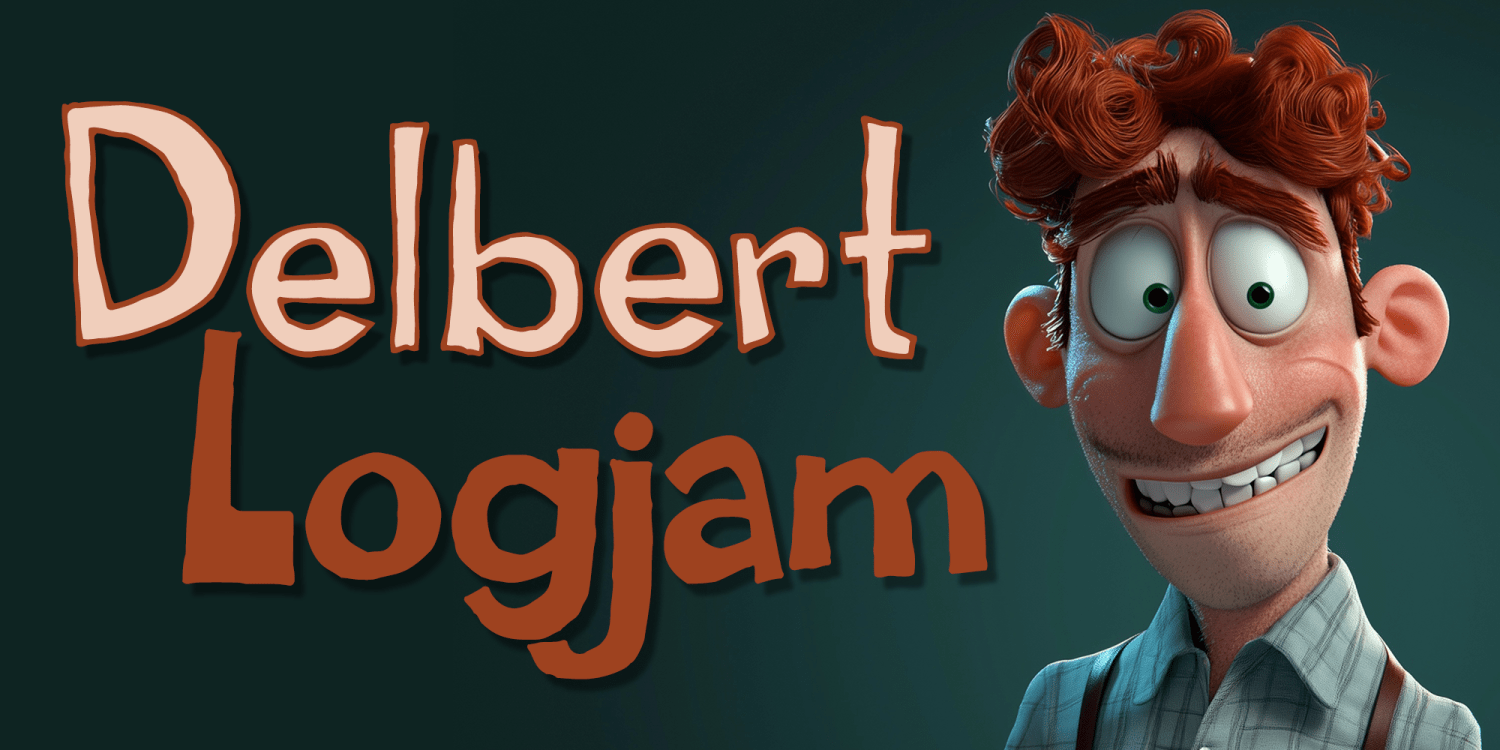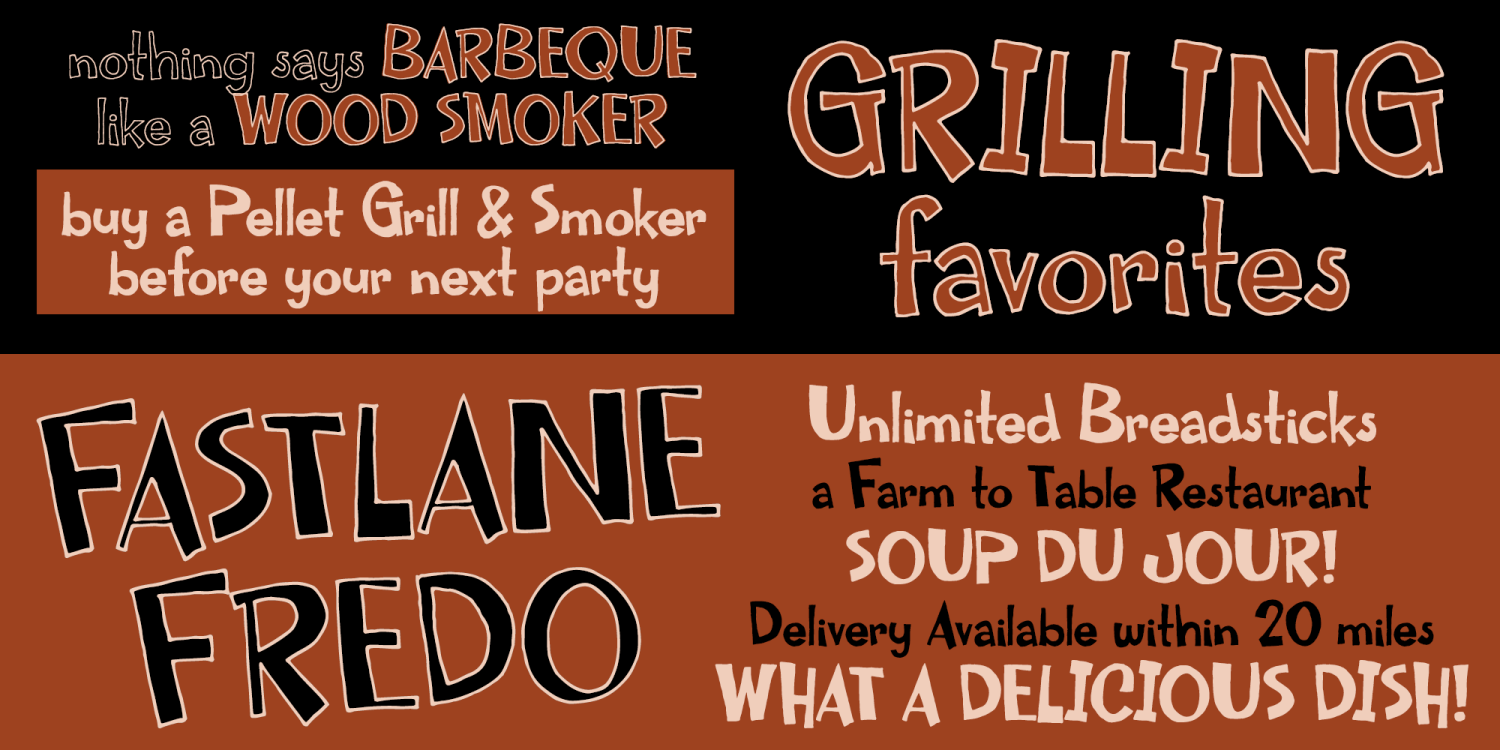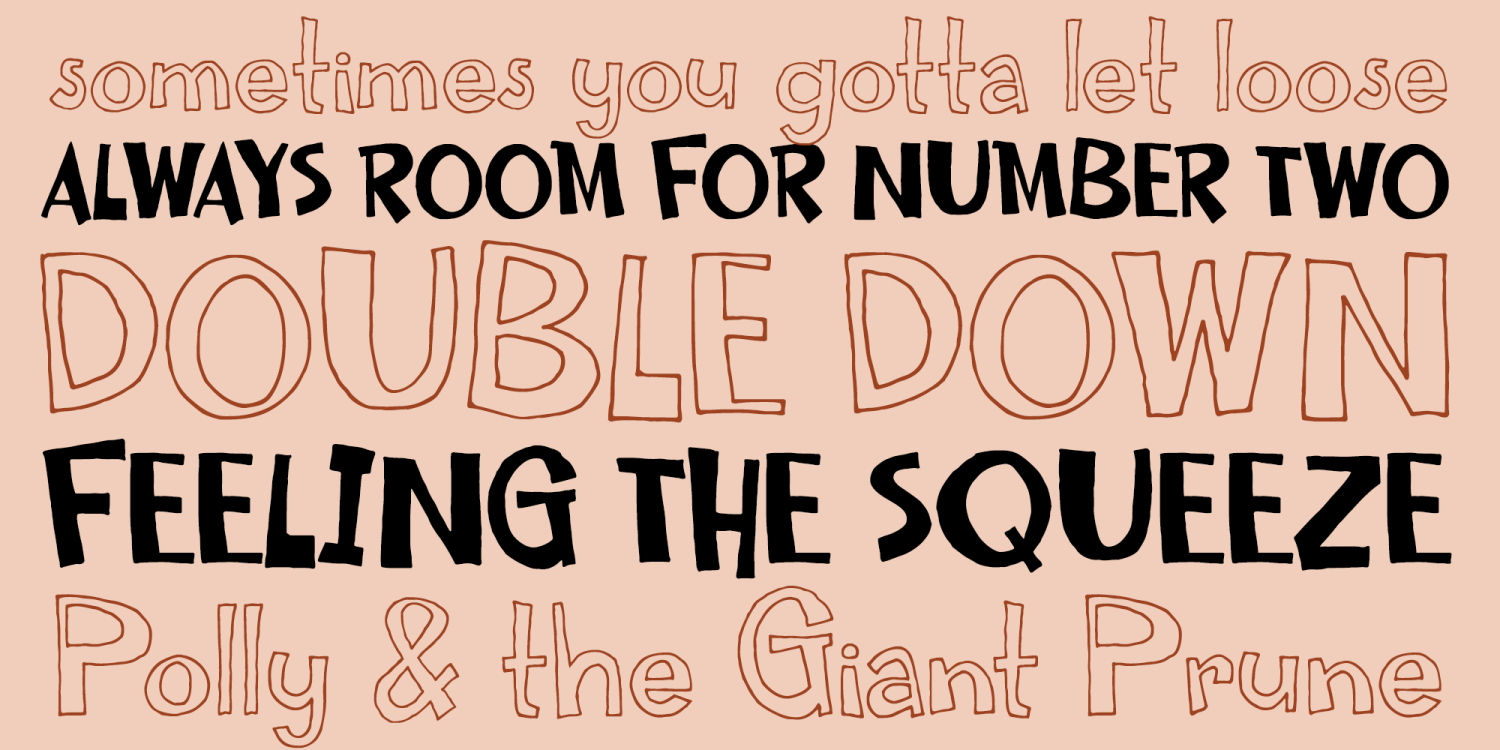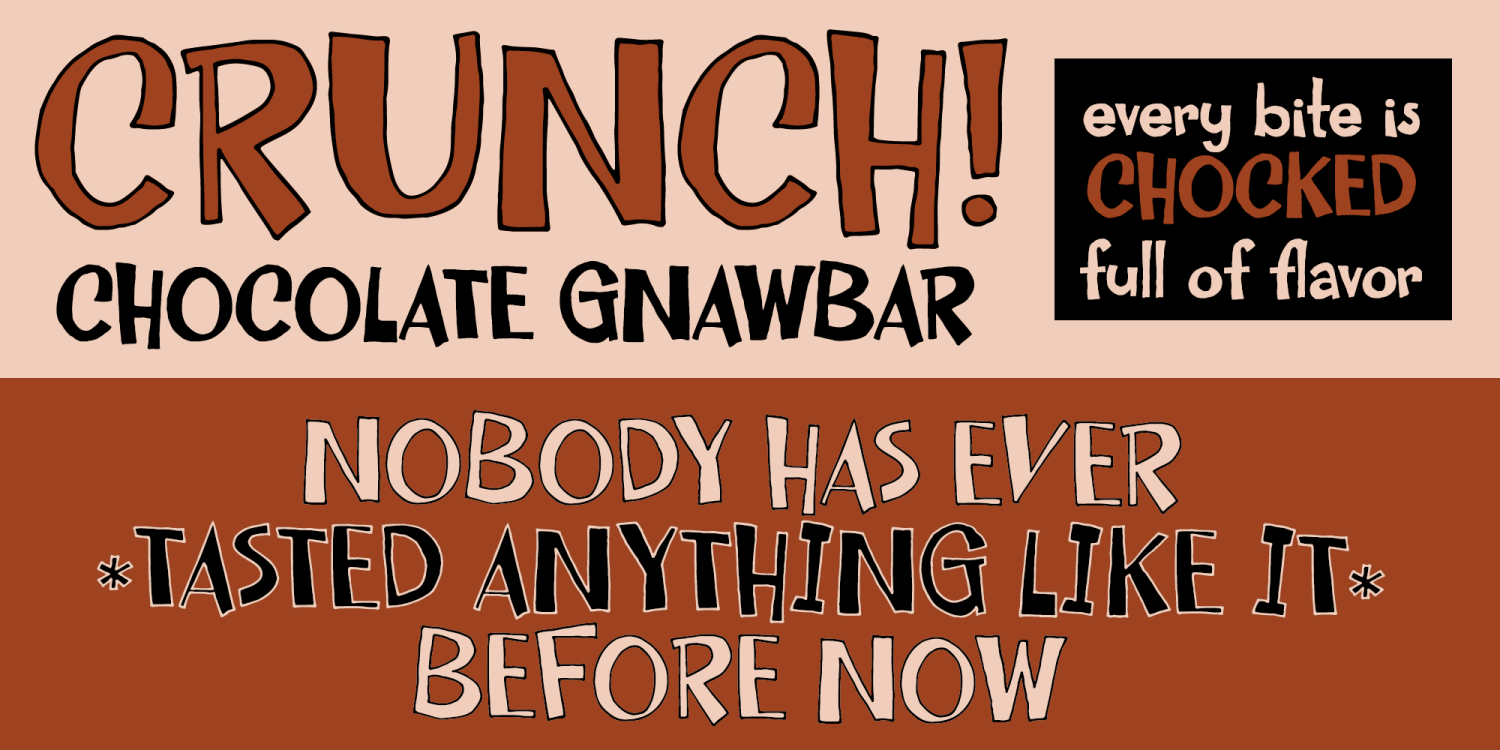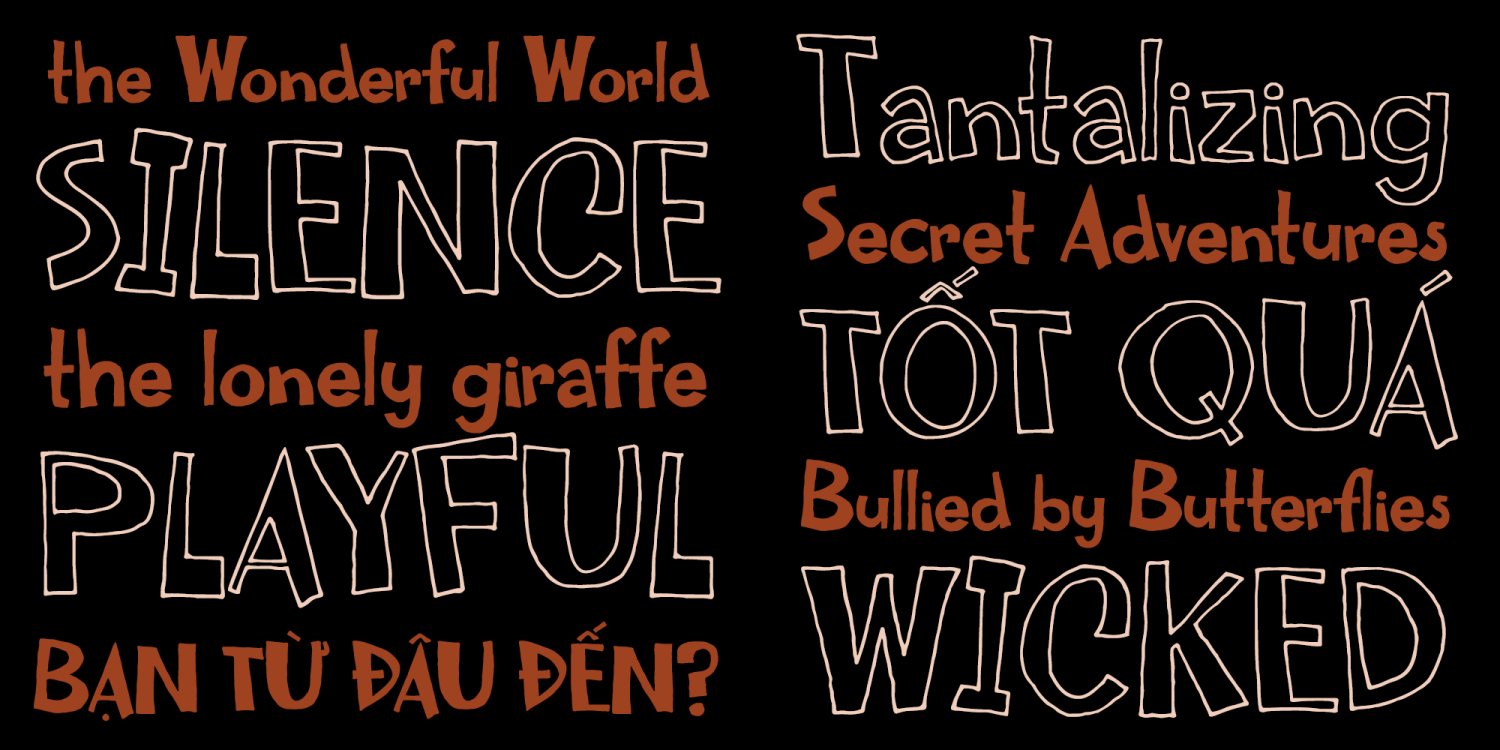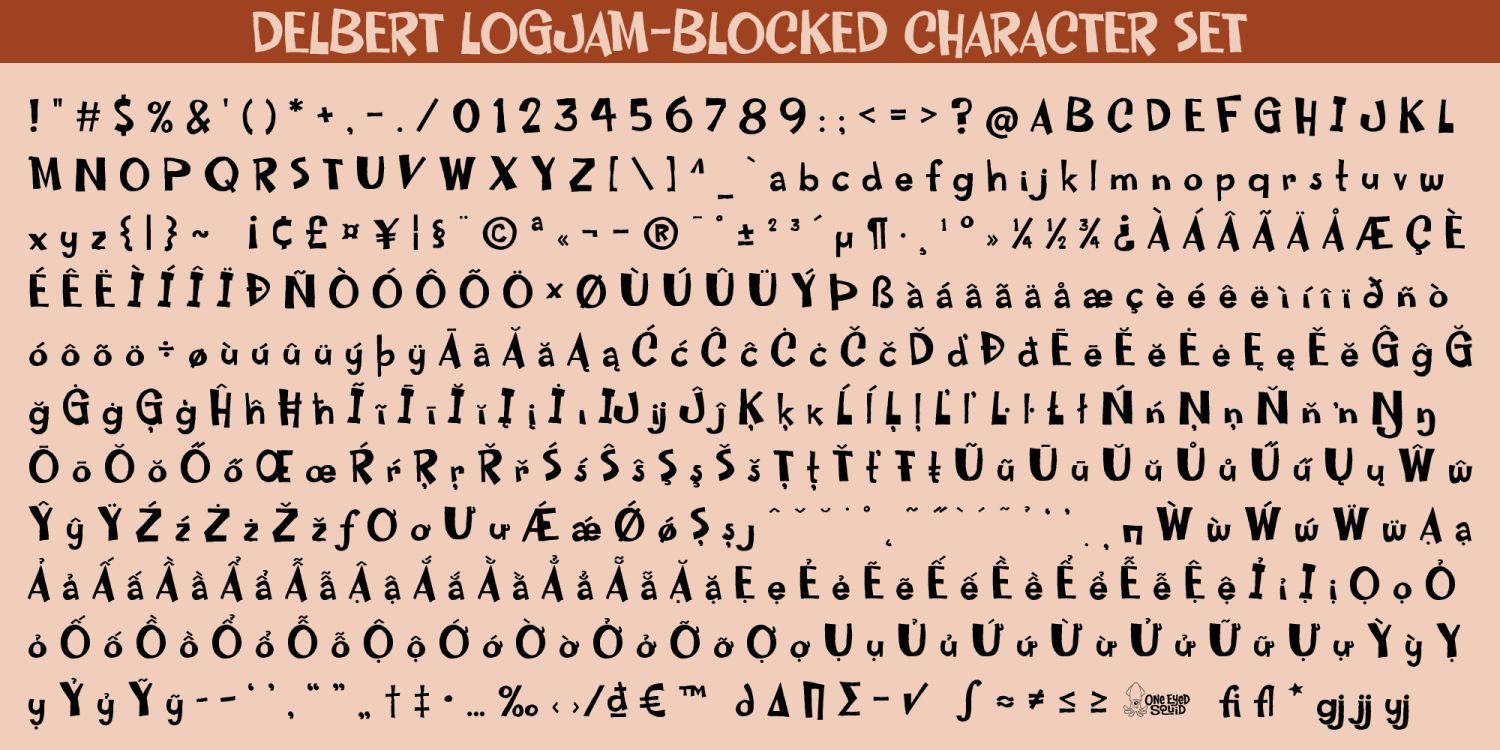
Delbert Logjam
Delbert Logjam is an awkwardly endearing display font family with a nervous charm, quirky personality, and an offbeat handmade feel. Its expressive letterforms balance withdrawn softness with playful character, making it a distinctive choice for designs that want to feel unconventional, humorous, and full of typographic personality. Available in Regular and Blocked styles, Delbert Logjam offers flexible options for headlines, posters, branding, packaging, greeting cards, social media graphics, and other creative projects that benefit from a friendly, eccentric visual voice. Includes extended Latin language support, including Vietnamese.
2 Styles Included
Blocked
Regular
Delbert Logjam includes 486 glyphs.